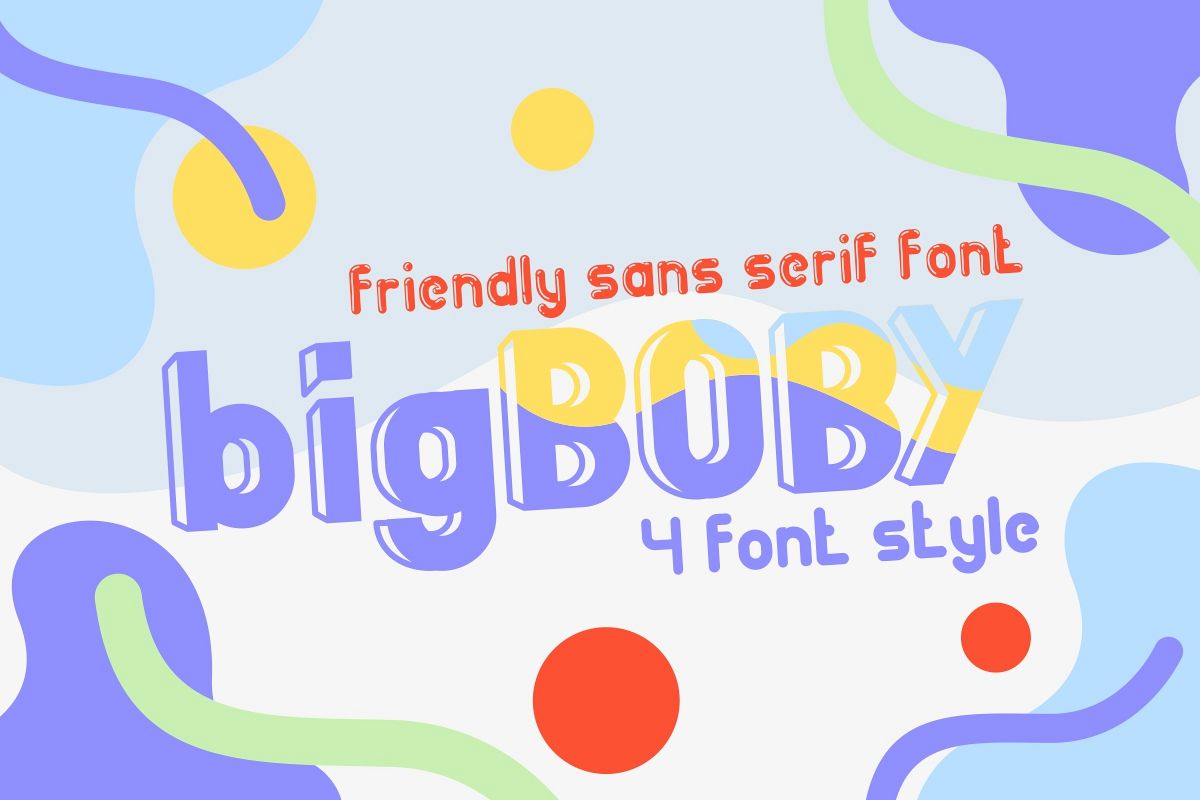
BigBOBY
BigBOBY-3D
BigBOBY-Balloons
BigBOBY-Regular
BigBOBY-Rounded
Hi Everyone! Introducing our newest font : bigBoby ! This is a new modern sans serif in comic fun style font. It has a fresh, elegant, fun and stylish glyph. It has 4 styles : regular, 3D, rounded, and ballons.bigBoby is a sophisticated styling font which will be perfect for branding, logo, photography, books, comic, caricature etc. It is so funny, cool and beautiful.This font will Work on PC & Mac with Simple installations. Accessible in the Adobe Illustrator, Adobe Photoshop, Adobe InDesign, even work on Microsoft Word. It’s also PUA Encoded Characters – Fully accessible without additional design software.Purchase with confidence! =)